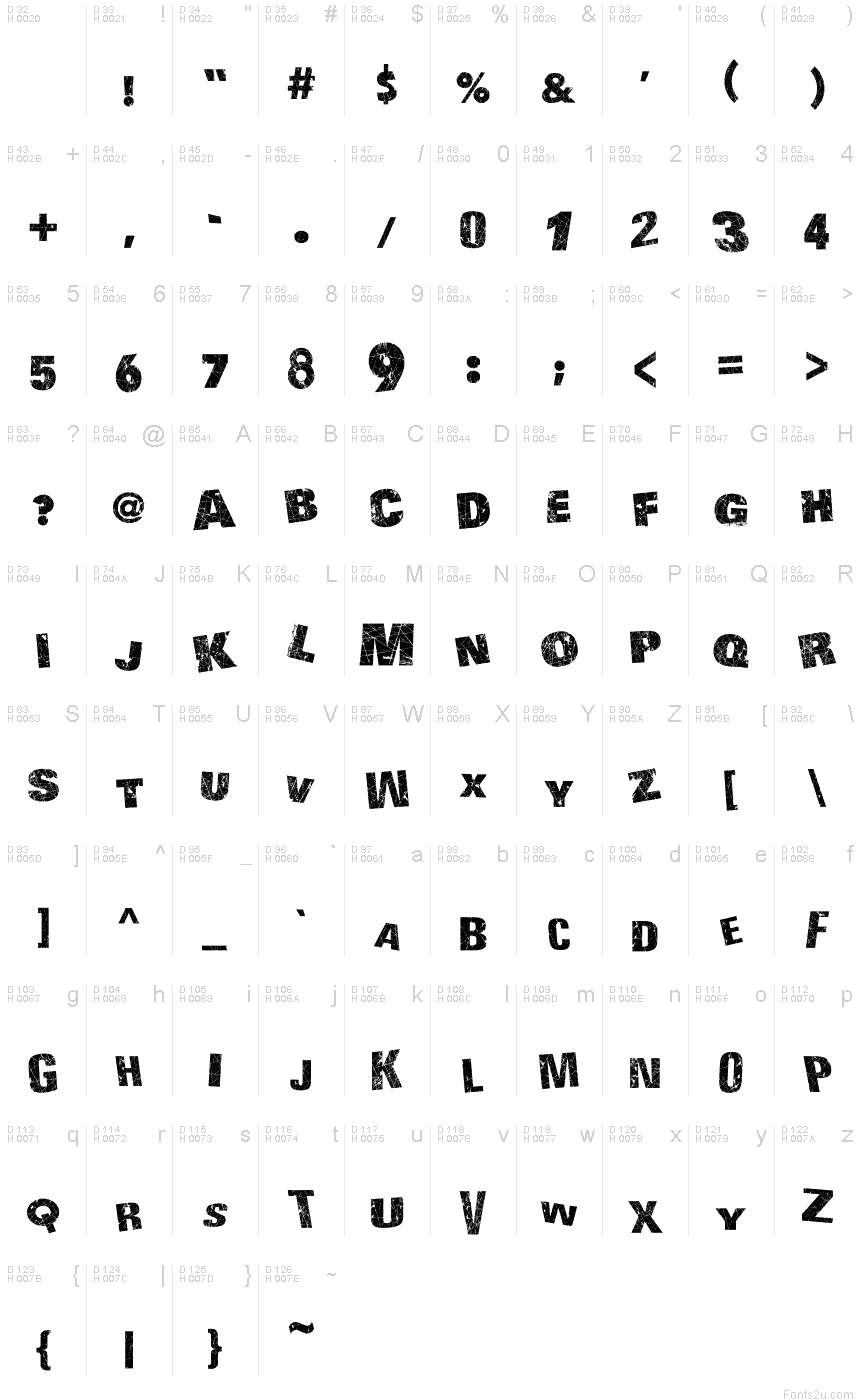
Action of the Time UPPER CASE
Action of the Time UPPER CASE by Galdino Otten is a free eroded caps display font built from massive block forms scored with fine, intersecting scratches and chipped gaps. Its blunt silhouettes feel forceful and industrial.
Streetwear labels and action-sports brands can use its battered surface as part of a rough, hard-used identity. It also suits concert posters, album packaging, and game graphics, where the broken streaks echo scuffed paint, scraped metal, or cracked glass. The lettering will speak most directly to audiences drawn to heavy music, underground fashion, extreme sports, and gritty entertainment with a taste for distressed graphics.